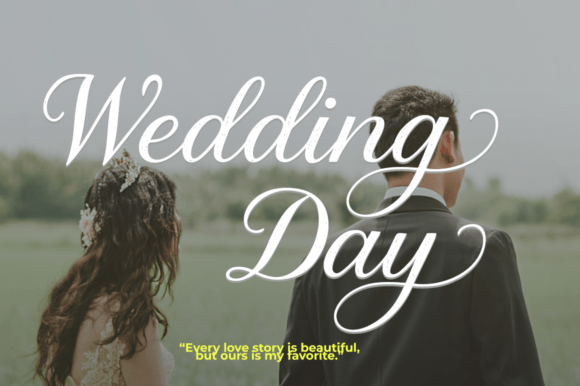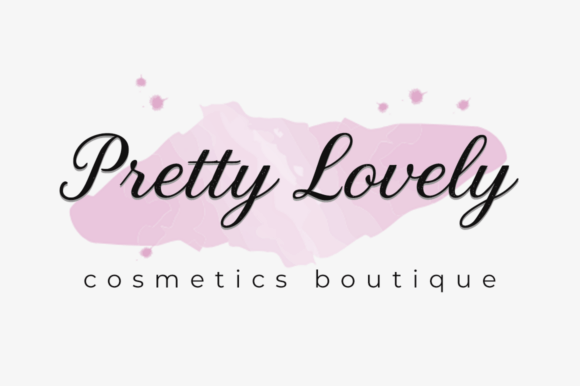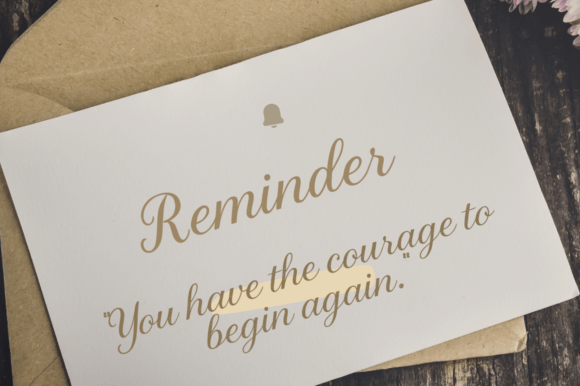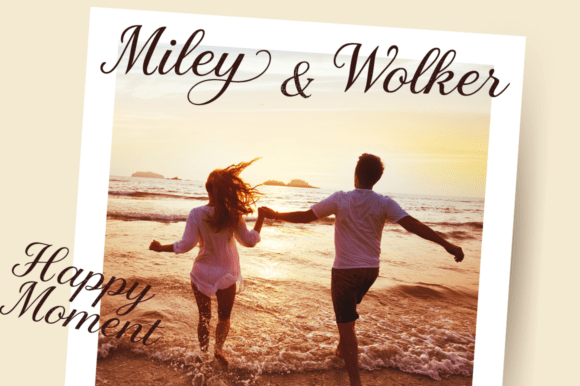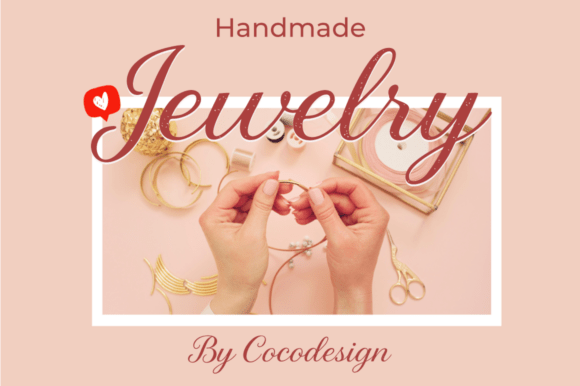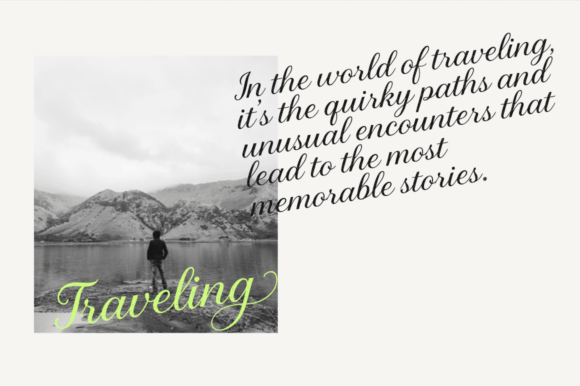
Introducing Giola Font: Elevate Your Designs with Elegance and Sophistication
Are you looking for a font that can add a touch of elegance and sophistication to your creative projects? Look no further than Giola Font, a modern handwriting calligraphy font that is perfect for a wide range of designs. From wedding invitations to branding, logos, packaging, quotes, and social media posts, Giola Font is the ideal choice for designers and crafters who want to make a statement.
What is Giola Font?
Giola Font is a beautifully crafted handwriting calligraphy font that exudes elegance and refinement. Its smooth curves and sophisticated style make it perfect for designs that require a touch of luxury and glamour. Whether you’re creating wedding invitations, branding materials, or social media posts, Giola Font is sure to impress.
Key Features of Giola Font
- Elegant and Modern Design: Giola Font features a modern handwriting calligraphy design that is both elegant and sophisticated.
- Versatile: Giola Font is perfect for a wide range of creative projects, including wedding invitations, branding, logos, packaging, quotes, and social media posts.
- Smooth Curves: The font features smooth curves and refined lines that add a touch of sophistication to any design.
- Easy to Read: Giola Font is easy to read, making it perfect for designs that require a clear and concise message.
Use Cases for Giola Font
Giola Font is perfect for a wide range of creative projects, including:
- Wedding Invitations: Add a touch of elegance and sophistication to your wedding invitations with Giola Font.
- Branding: Use Giola Font to create a luxurious and sophisticated brand identity for your business.
- Logos: Create a stunning logo for your business or personal brand with Giola Font.
- Packaging: Add a touch of elegance to your product packaging with Giola Font.
- Quotes: Use Giola Font to create inspiring and motivational quotes for social media or print materials.
- Social Media Posts: Add a touch of sophistication to your social media posts with Giola Font.
Bonus: Spooky Font
As an extra, this package also includes a bonus Spooky Font with a fun horror style, ideal for Halloween themes, posters, flyers, games, or mystery-inspired designs. The Spooky Font is perfect for designers who want to create a spooky and eerie atmosphere in their designs.
Why Choose Giola Font?
There are many reasons why you should choose Giola Font for your creative projects. Here are a few:
- Unique Design: Giola Font features a unique and elegant design that will set your designs apart from the rest.
- High-Quality: The font is of high quality, making it perfect for print and digital materials.
In conclusion, Giola Font is a beautiful and elegant handwriting calligraphy font that is perfect for a wide range of creative projects. With its smooth curves and refined style, Giola Font adds a touch of sophistication to any design. The bonus Spooky Font is a great addition to the package, providing designers with a fun and horror-inspired font for Halloween themes and mystery-inspired designs. Whether you’re a designer or crafter, Giola Font is a great choice for anyone who wants to elevate their designs and create something truly special.